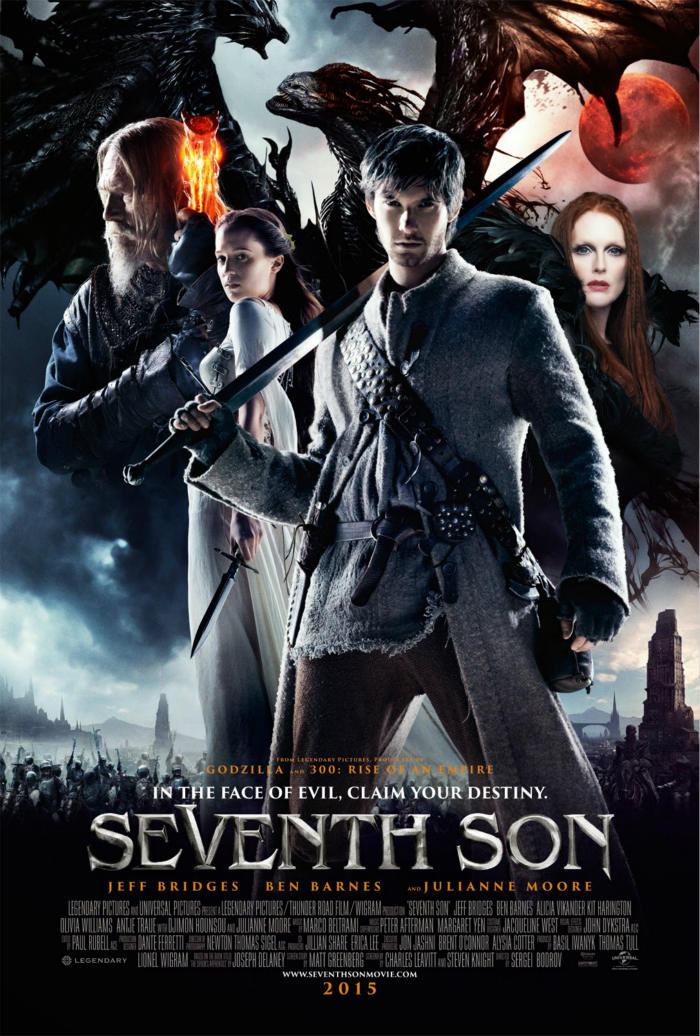
Seventh Son Font
ActionSeventh Son is a fantasy adventure film released in 2015, directed by Sergei Bodrov and starring Jeff Bridges, Ben Barnes, and Julianne Moore. The film is based on the first book in the "The Wardstone Chronicles" series by Joseph Delaney. The film follows the story of Tom Ward, a young man who is the seventh son of a seventh son, making him a rare and powerful individual with magical abilities.
The font used on the movie poster for the title Seventh Son is extremely reminiscent of ITC Benguiat, a roman face created by Ed Benguiat for ITC in the early 1980s. The ITC Benguiat font family's stress appears in the upper half of each capital, similar to ITC Korinna. It is commonly used for advertising purposes.